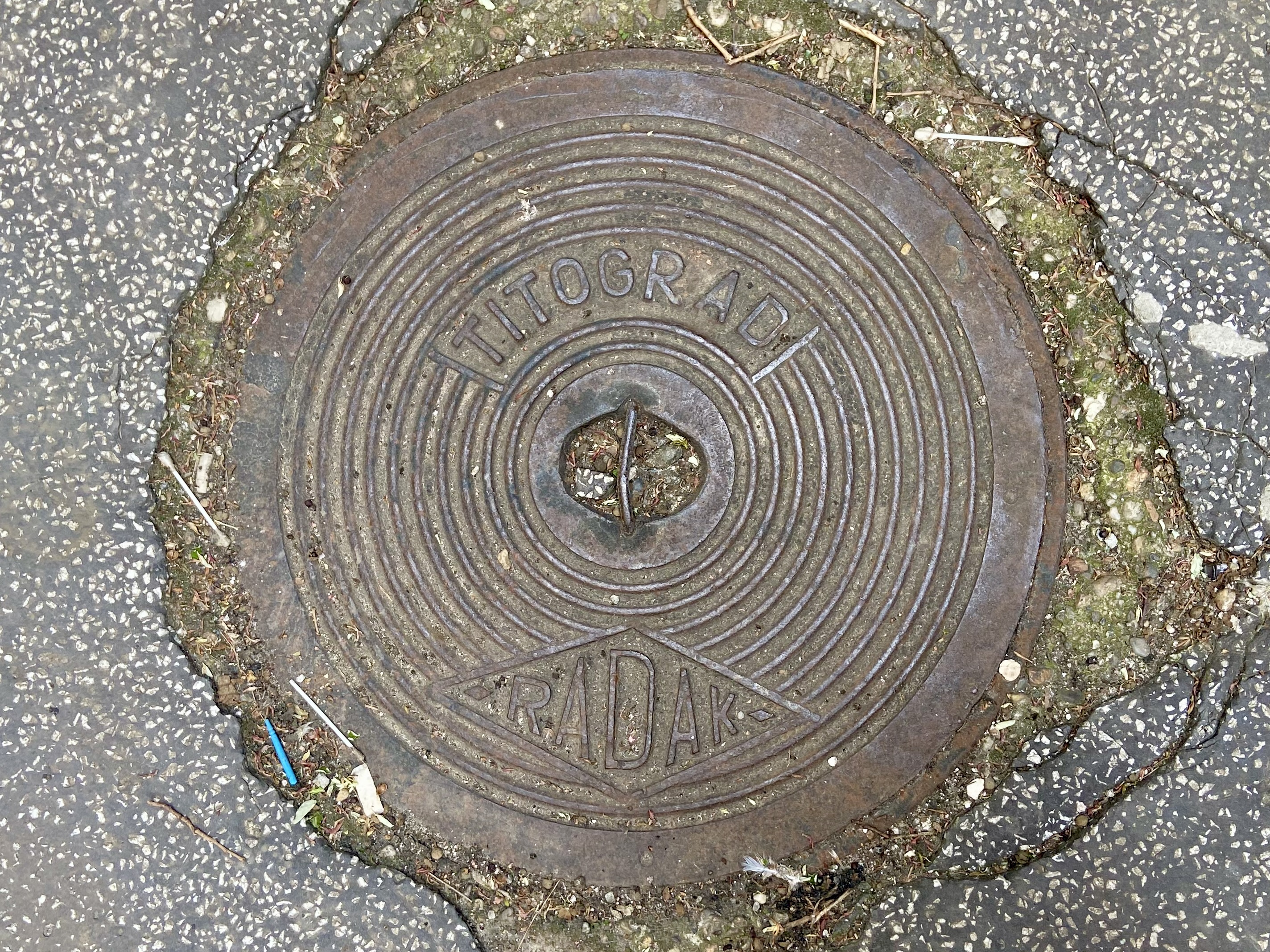
Titograd Radak
manhole
Titograd was the name of Podgorica, the capital of Montenegro from 1949 to 1992, in honor of Josip Broz Tito - the leader of Yugoslavia. Most likely Radak is the name of a metal production company.